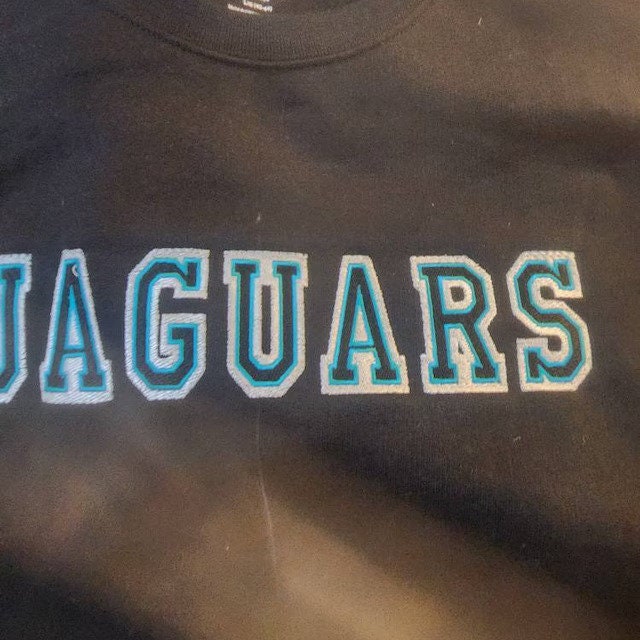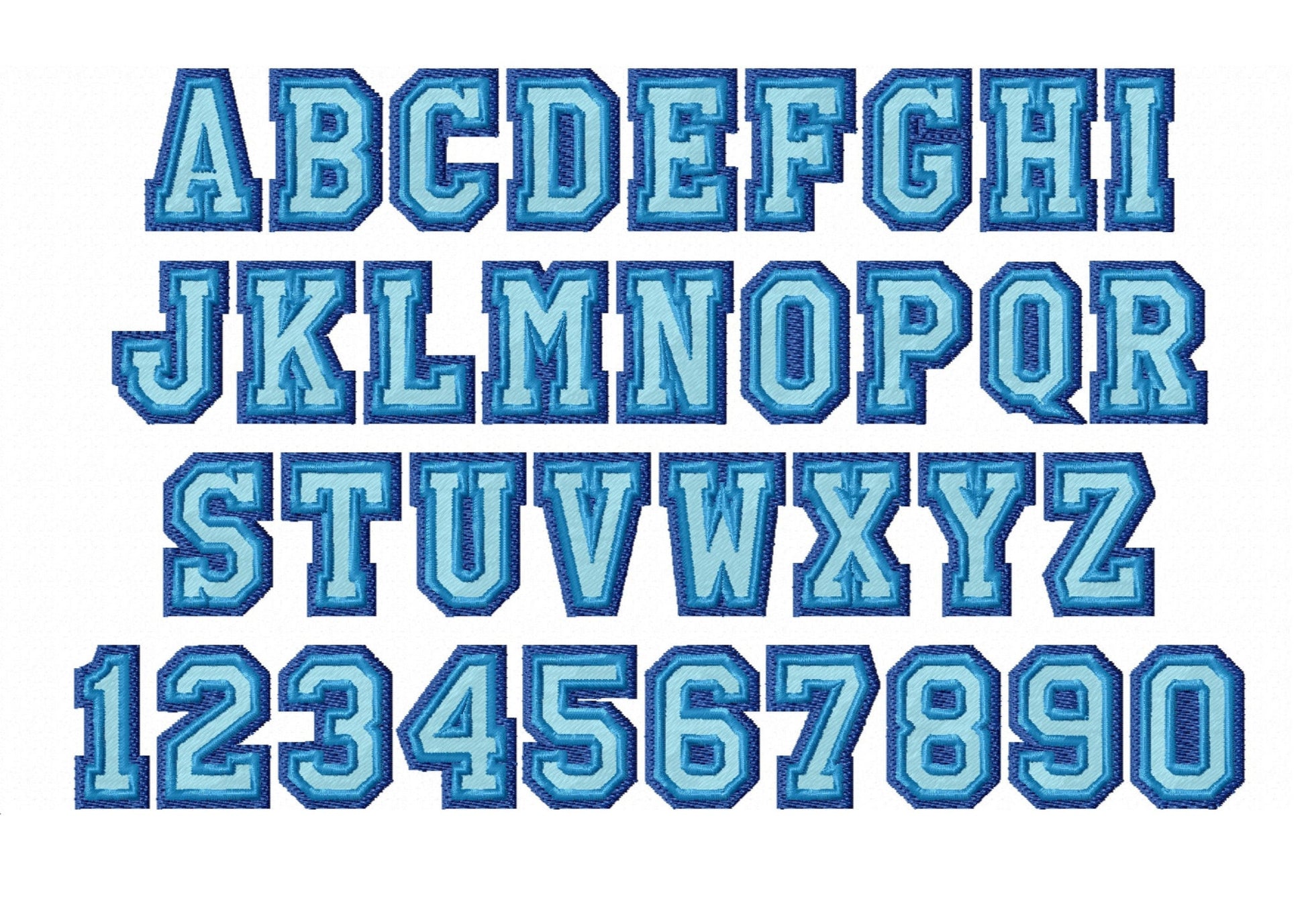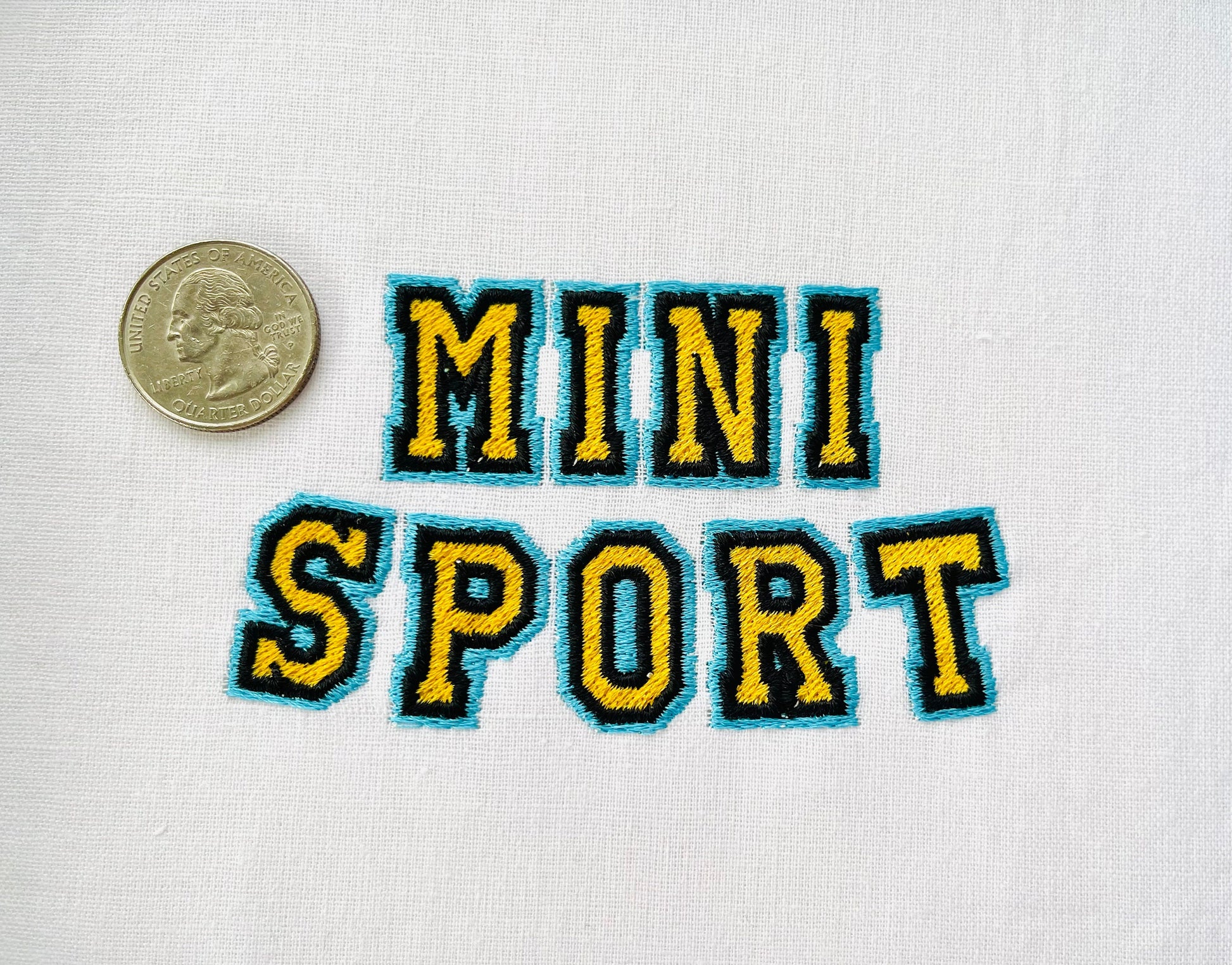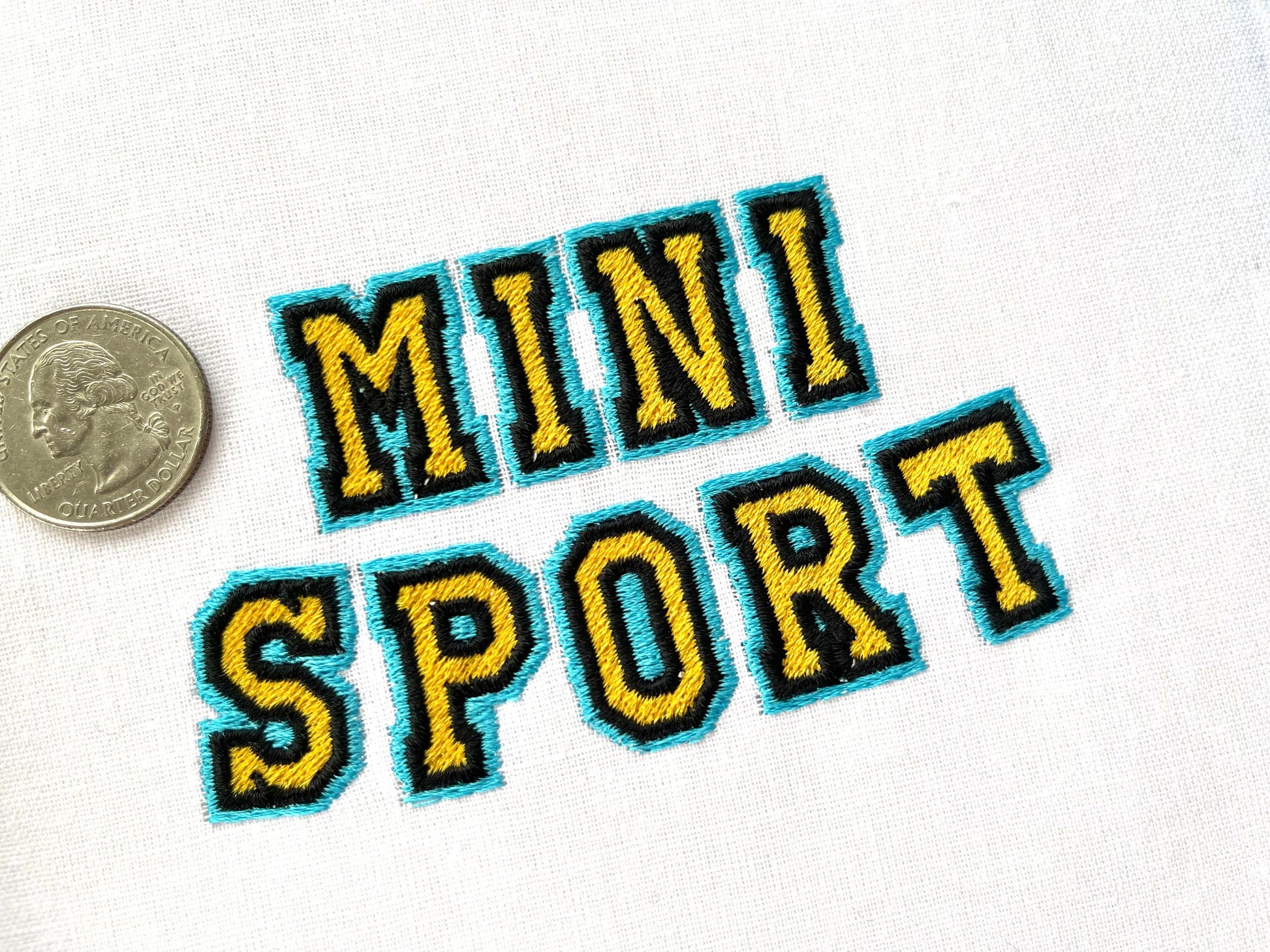
Or click to open the linkA mini varsity collegiate font in fill stitch with two contrast outlines, three colors in total. Sporty for caps, sleeves, team shirts and small names.
Uppercase letters A to Z, numbers 0 to 9 and an ampersand, in three mini sizes: 1, 1.2 and 1.5 inches.